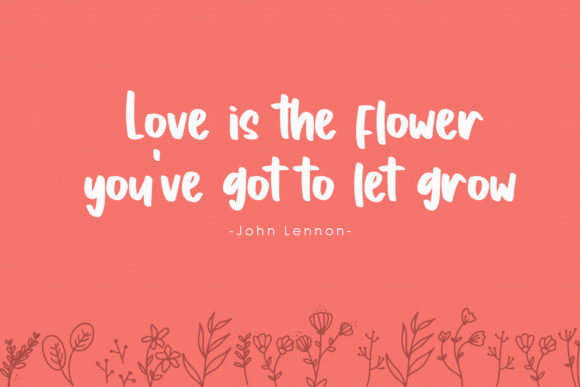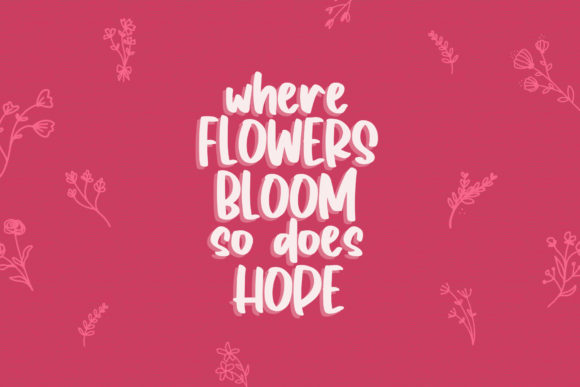
Spring Garden Font
db-ku.com - Script & Handwritten -- Spring Garden feels equally charming and elegant. This stunning script font is a stylish homage to classic calligraphy. It features a varying baseline, smooth lines, gorgeous glyphs, and stunning alternates. It will elevate a wide range of design projects to the highest level, be it branding, headings, wedding designs, invitations, signatures, logos, labels, and much more!